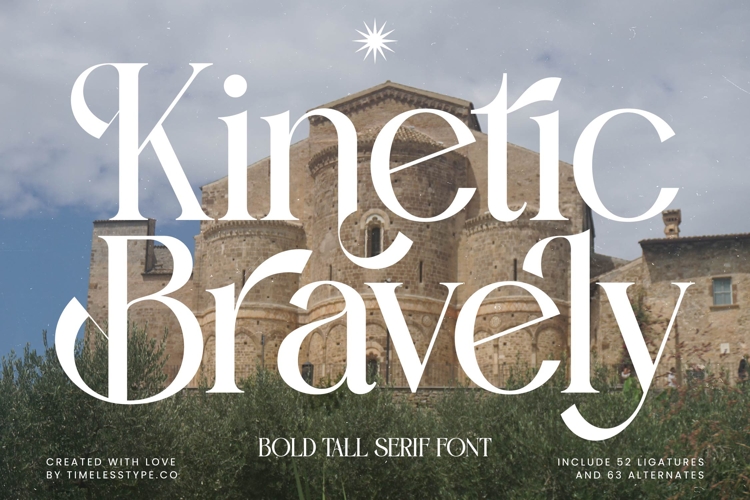
Kinetic Bravely - Bold Tall Serif Font
Kinetic Bravely is a bold tall serif font that embodies elegance, strength, and timeless sophistication. Its elongated proportions, sharp serifs, and refined detailing make it ideal for projects that require a dramatic and luxurious presence. Designed with 52 ligatures and 63 alternates, Kinetic Bravely provides an extensive range of stylistic options, allowing designers to craft expressive, high-impact typography for both classic and contemporary design contexts.
This font is especially powerful in headline typography, where its tall stature and bold shapes immediately capture attention across posters, banners, and editorial layouts. In branding and logo design, Kinetic Bravely communicates exclusivity and confidence, making it a perfect choice for fashion houses, luxury brands, lifestyle businesses, and cultural institutions that want to leave a strong and memorable impression. Its elegant construction also makes it highly effective for packaging design, particularly for premium products such as wine, cosmetics, gourmet items, and artisanal goods where refined typography conveys quality and prestige.
Kinetic Bravely thrives in advertising campaigns, event promotions, and social media graphics, where its unique ligatures and alternates add individuality and sophistication. For editorial spreads, wedding invitations, book covers, and certificates, the font brings grandeur and classic refinement, making typography a key element of storytelling.
With multilingual support, Kinetic Bravely adapts effortlessly to international projects, ensuring global appeal across diverse creative fields.
Ultimately, Kinetic Bravely is more than a typeface—it is a visual signature of bold artistry and timeless beauty. Whether used in editorials, branding, packaging, or digital content, it ensures every project radiates elegance, strength, and unforgettable style.